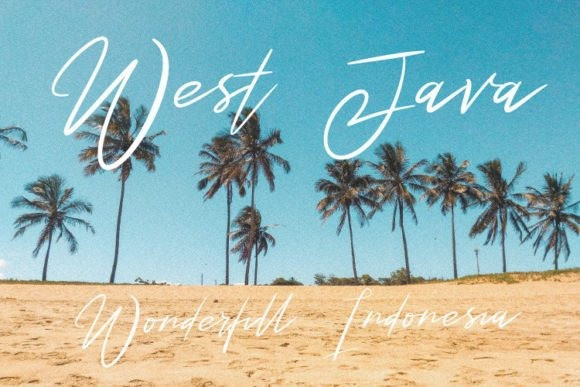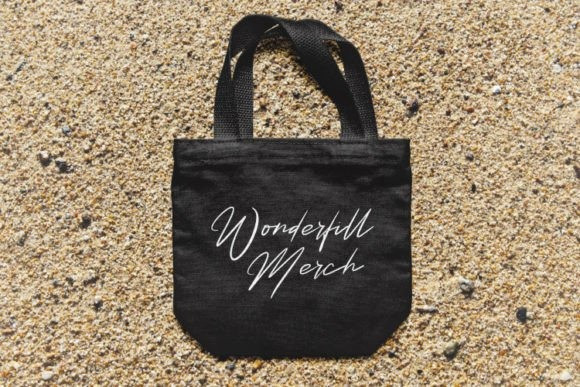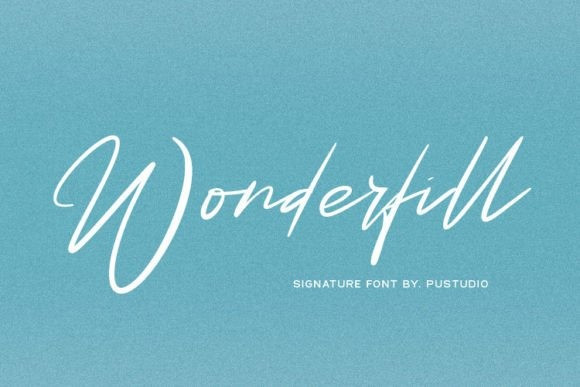
Wonderfill Signature Font
Wonderfill Signature Font is a signature script font with the perfect choice to spice up your designs. With smooth and elegant lines, this font gives off a luxurious feel and sets it apart from other fonts. Flexible and easy to use, this font is suitable for many designs, logos, business cards, brochures, and more.